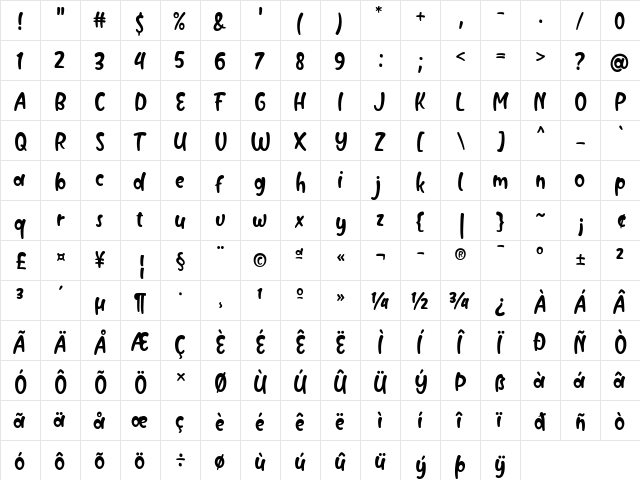
Milyone Regular
| Foundry | 7NTypes |
| Designer | Rifki; Situjuh Nazara |
Design Context for Milyone Typeface
Milyone is a composed and adaptable typeface that performs quietly and consistently across a wide range of design contexts.